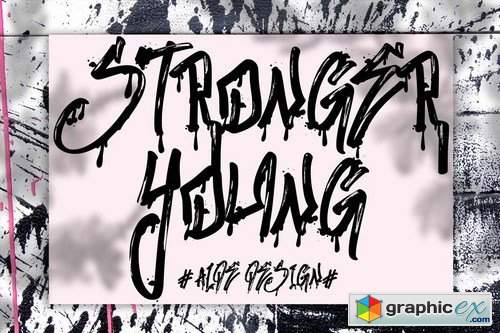
Stronger Megatron
Stronger Megatron Introducing our new experiment font the name is 'Stronger Megatron' - it's a quirky and stand out graffiti font that inspired by street graffiti style with a fun theme very good for graffiti poster, Hip Hop music, kids poster, flyer, children book, cartoon, comic, etc.